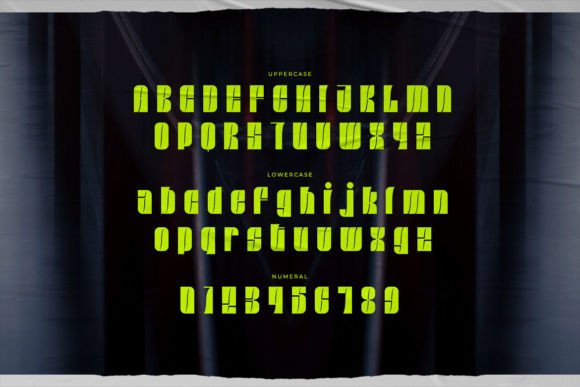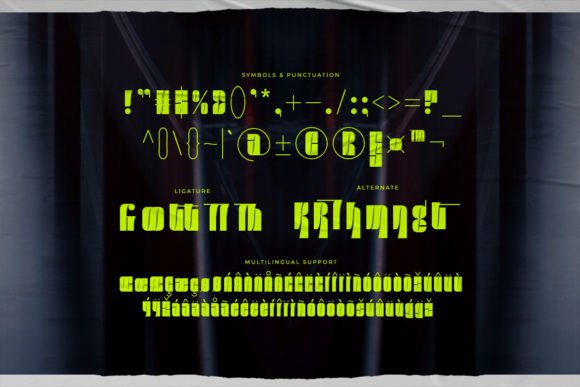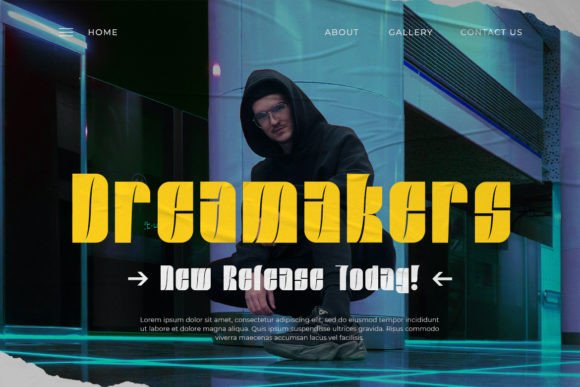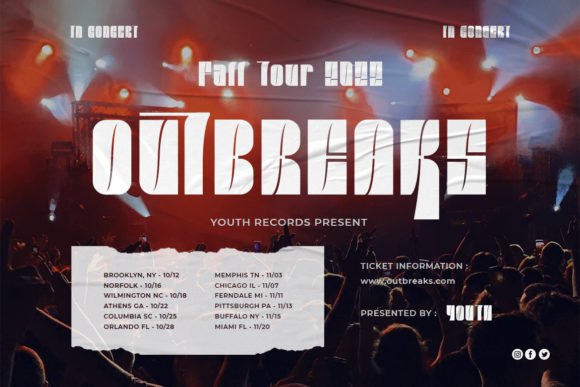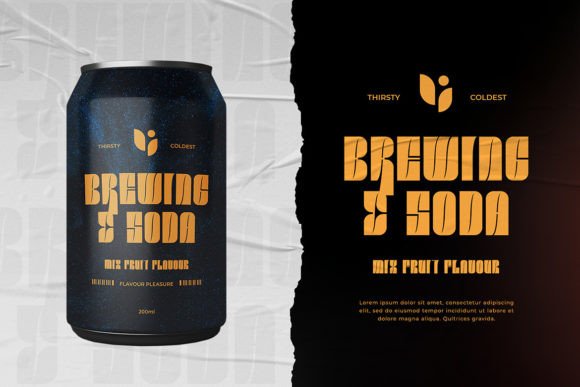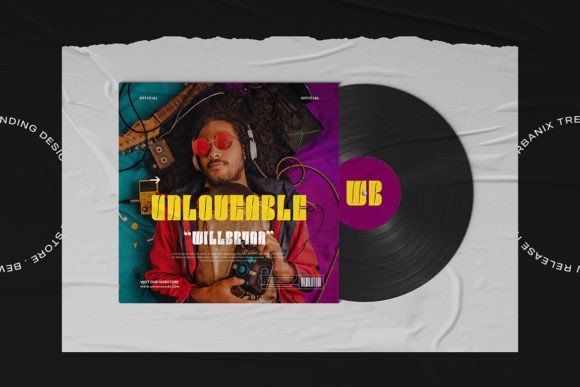
Boldingtown Font: The Ultimate Bold Sans Font for Your Creative Projects
In the world of typography, fonts play a crucial role in conveying the tone and personality of a design. For designers and crafters looking for a bold and eye-catching sans font, Boldingtown is an excellent choice. This unique bold sans font is designed to add a touch of sophistication and style to any project, making it the ideal choice for those who want to create something truly special.
What Makes Boldingtown Font Stand Out?
Boldingtown font is a one-of-a-kind bold sans font that is sure to grab attention. Its clean and crisp lines, combined with its bold and confident appearance, make it perfect for a wide range of design projects. Whether you’re working on a logo, brochure, or website, Boldingtown font is sure to make a lasting impression.
One of the key features that sets Boldingtown font apart from other sans fonts is its unique character set. The font includes a wide range of characters, including uppercase and lowercase letters, numbers, and punctuation marks. This makes it easy to use Boldingtown font for a variety of design projects, from simple logos to complex typographic designs.
Why Choose Boldingtown Font for Your Design Projects?
So, why should you choose Boldingtown font for your design projects? Here are just a few reasons:
- Unique and eye-catching: Boldingtown font is a bold and eye-catching sans font that is sure to grab attention.
- Clean and crisp lines: The font features clean and crisp lines, making it perfect for a wide range of design projects.
- Wide range of characters: Boldingtown font includes a wide range of characters, making it easy to use for a variety of design projects.
- Easy to read: Despite its bold appearance, Boldingtown font is easy to read, making it perfect for use in body text and headlines.
How to Use Boldingtown Font in Your Design Projects
Using Boldingtown font in your design projects is easy. Here are a few tips to get you started:
- Use it as a headline font: Boldingtown font is perfect for use in headlines and titles, where its bold and eye-catching appearance can really make an impact.
- Pair it with a serif font: For body text, consider pairing Boldingtown font with a serif font to create a nice contrast between the two.
- Experiment with different colors: Boldingtown font looks great in a wide range of colors, so don’t be afraid to experiment and find the perfect color for your design.
In conclusion, Boldingtown font is a unique and eye-catching bold sans font that is perfect for designers and crafters looking to add a touch of sophistication and style to their design projects. With its clean and crisp lines, wide range of characters, and easy-to-read appearance, Boldingtown font is sure to become a go-to choice for anyone looking to create something truly special.
Whether you’re working on a logo, brochure, or website, Boldingtown font is the ideal choice for any cool project or great design you wish to develop. So why not give it a try and see the difference it can make in your design projects?